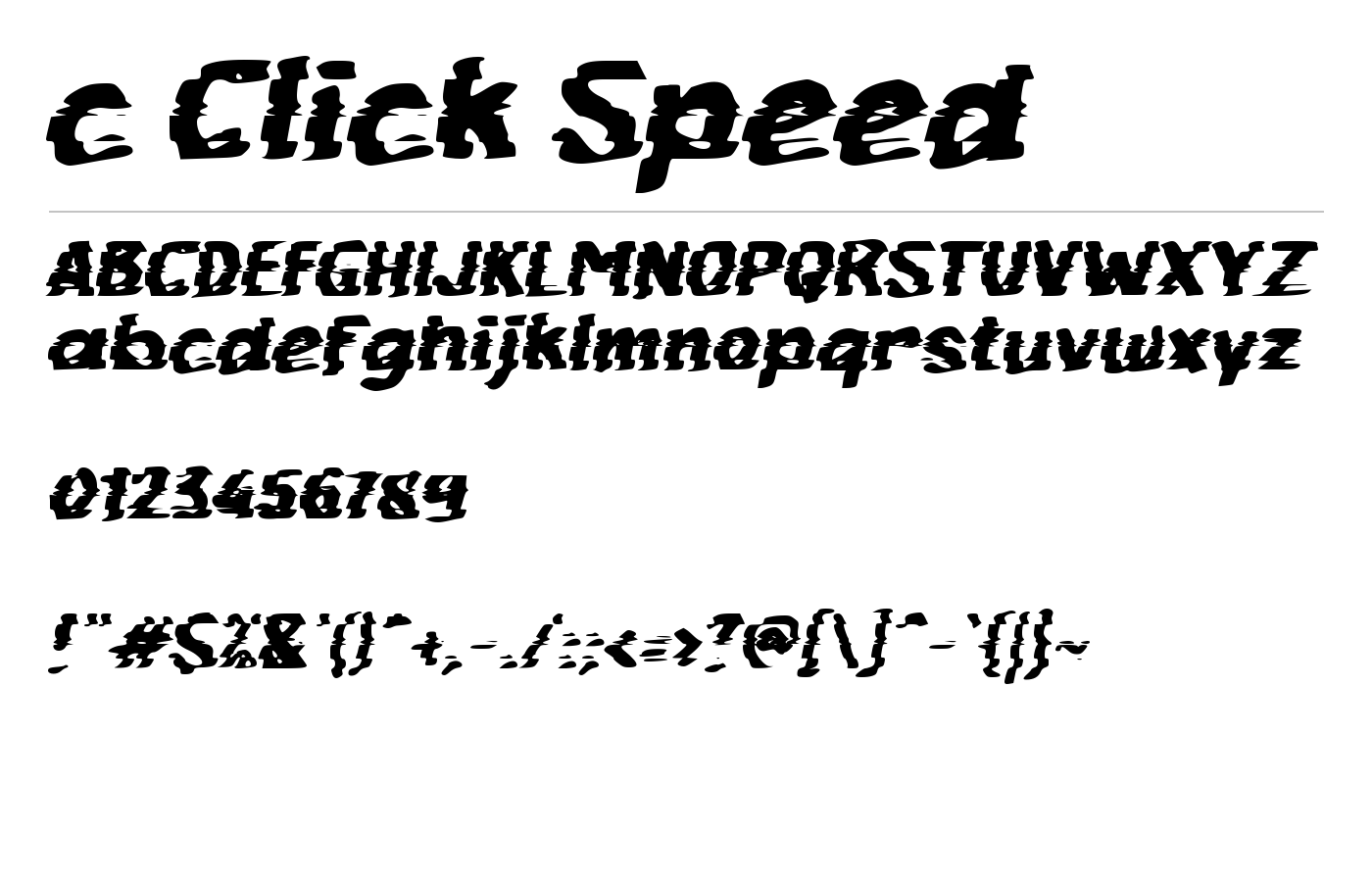
Click Speed Font is a bold, condensed sans serif with a dynamic, energetic vibe created by its jagged, glitch-like edges and uneven strokes. It conveys a sense of movement and urgency, making it ideal for expressive headlines and eye-catching designs that want to evoke speed, technology, or disruption. This font works well for posters, gaming branding, and any project seeking a bold, modern, and slightly rebellious character.
c Click Speed Font